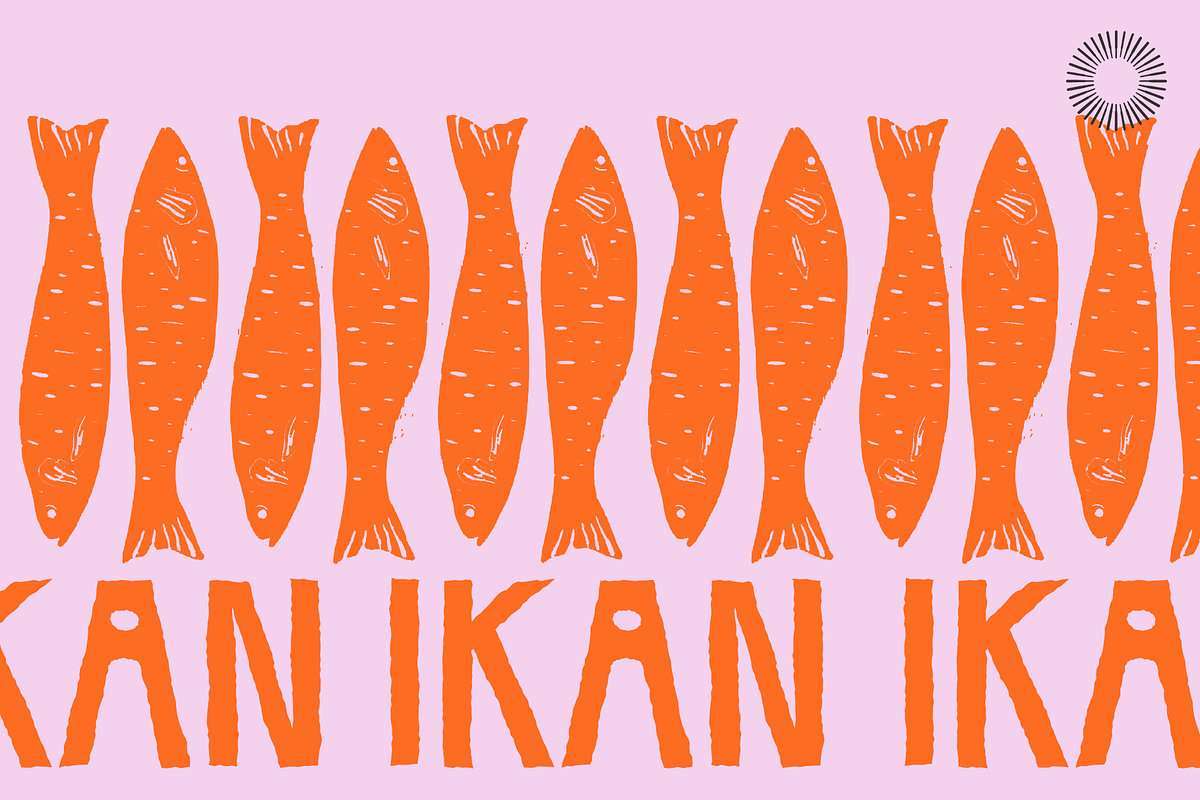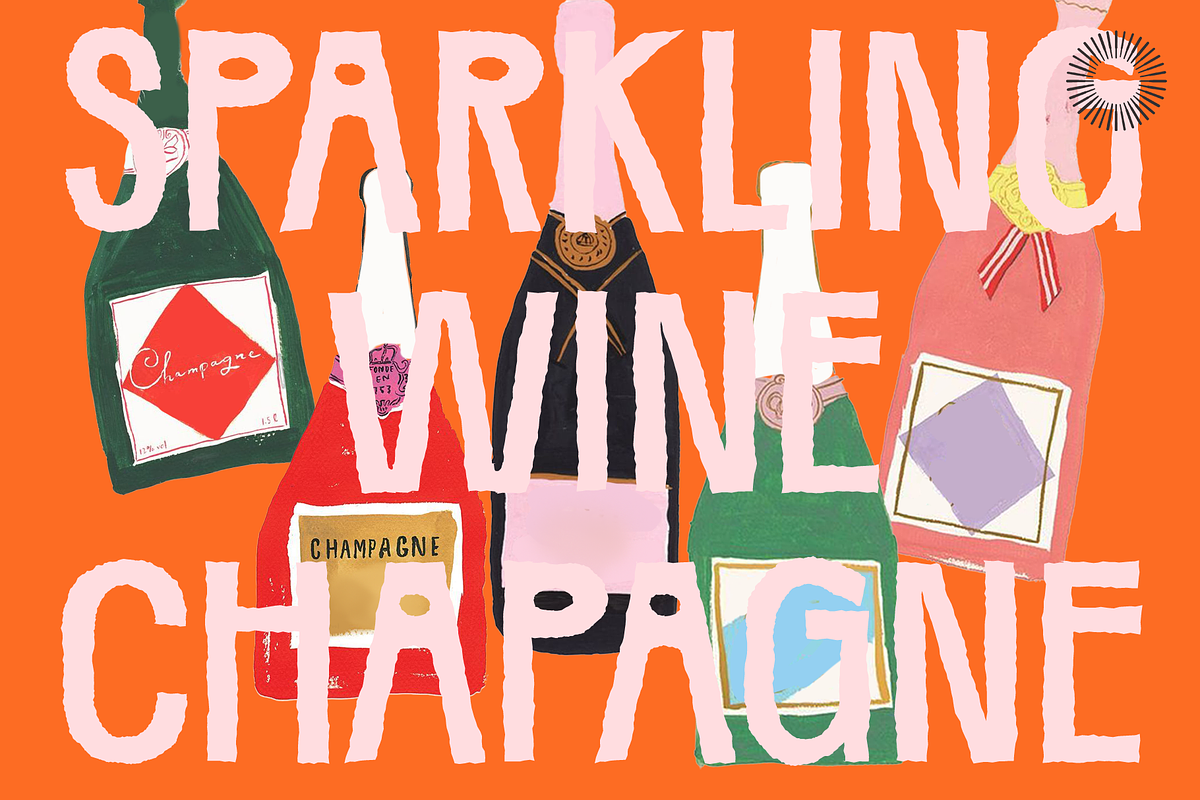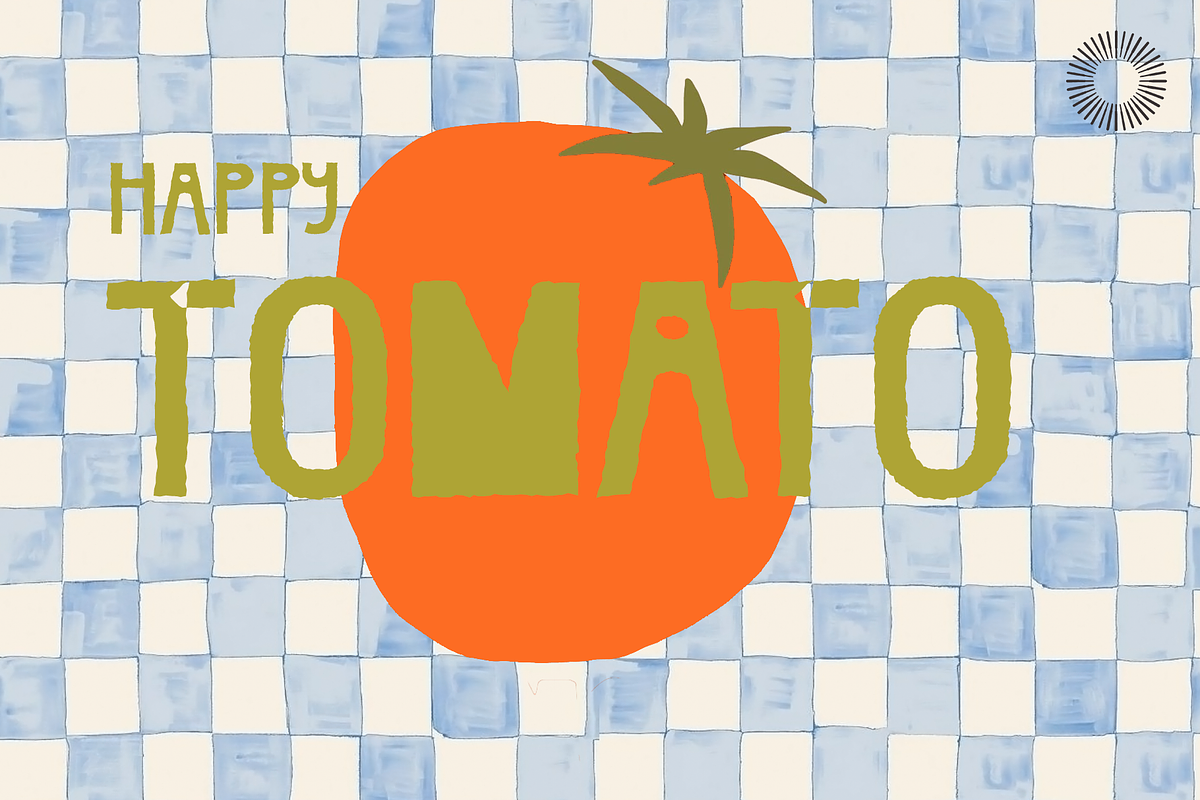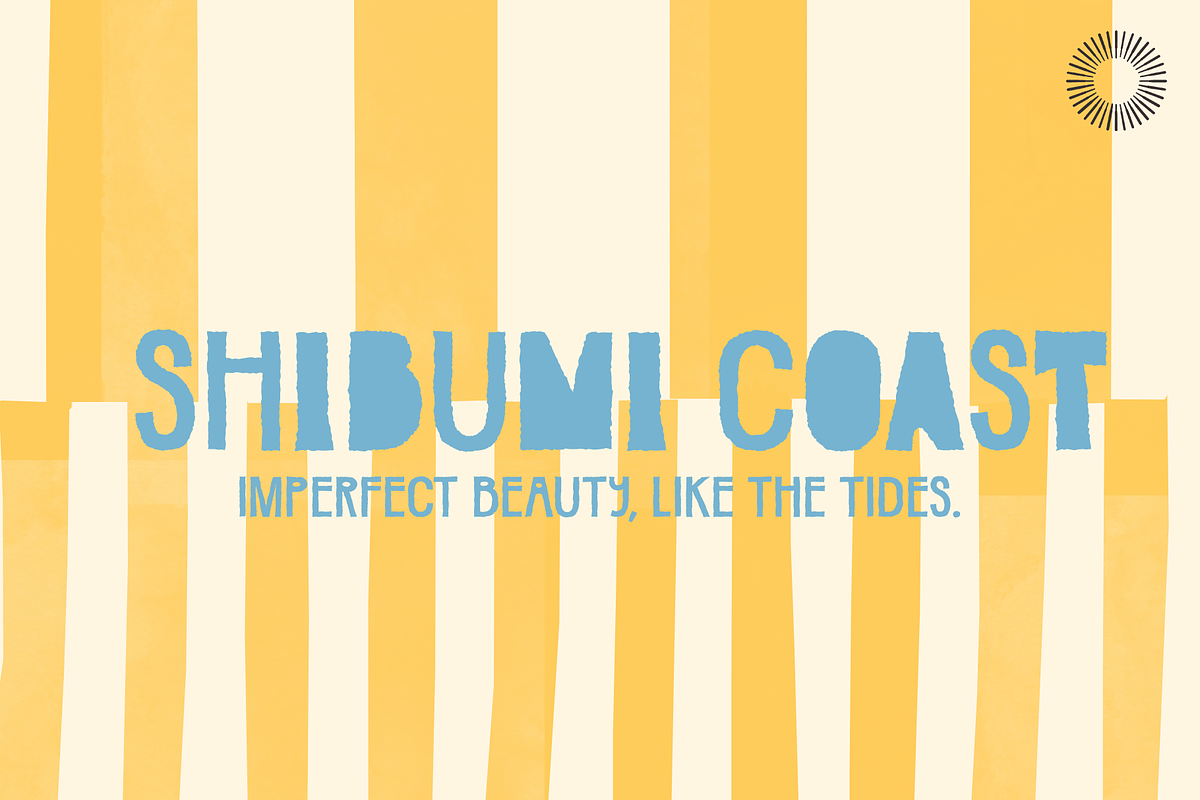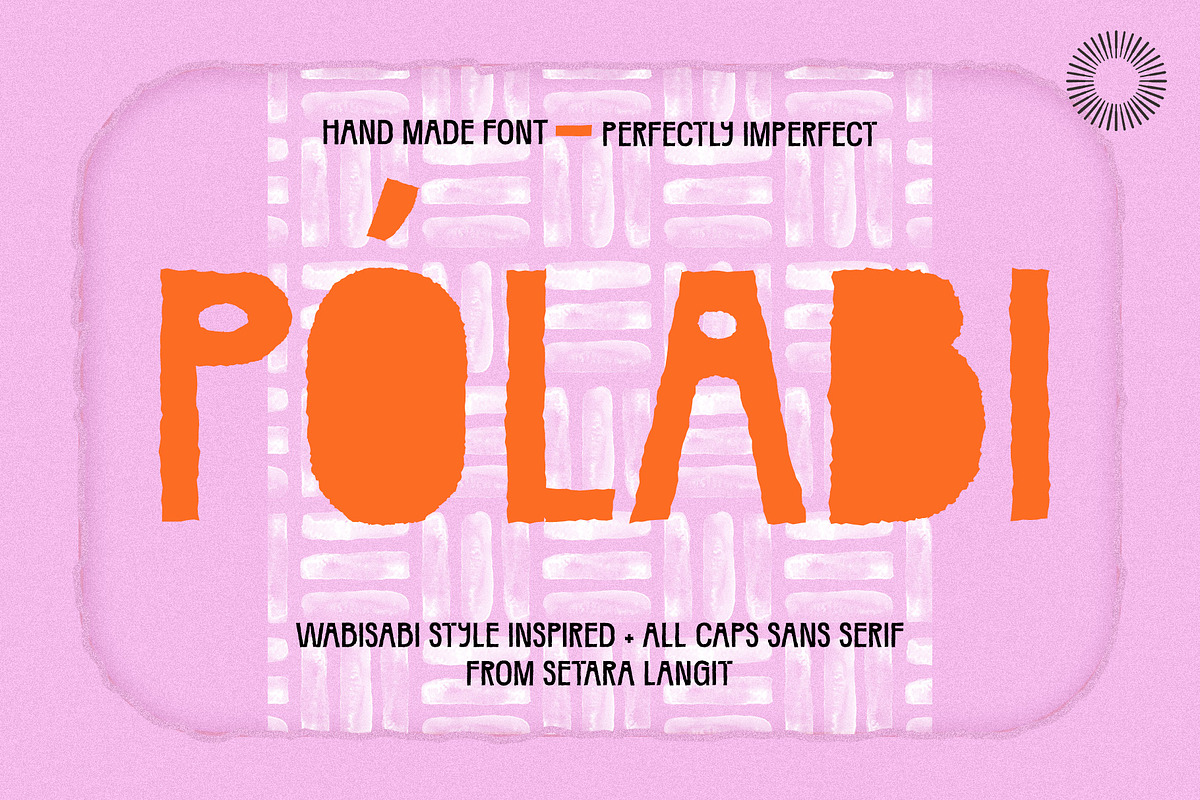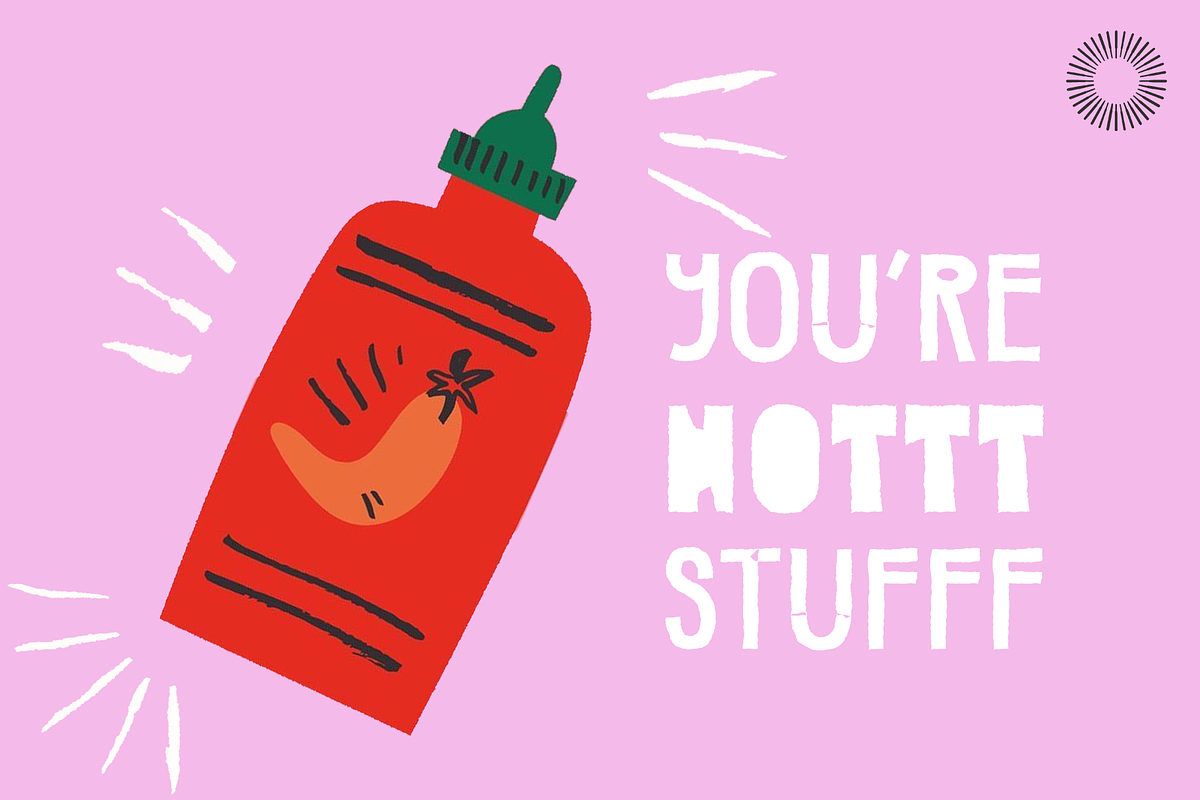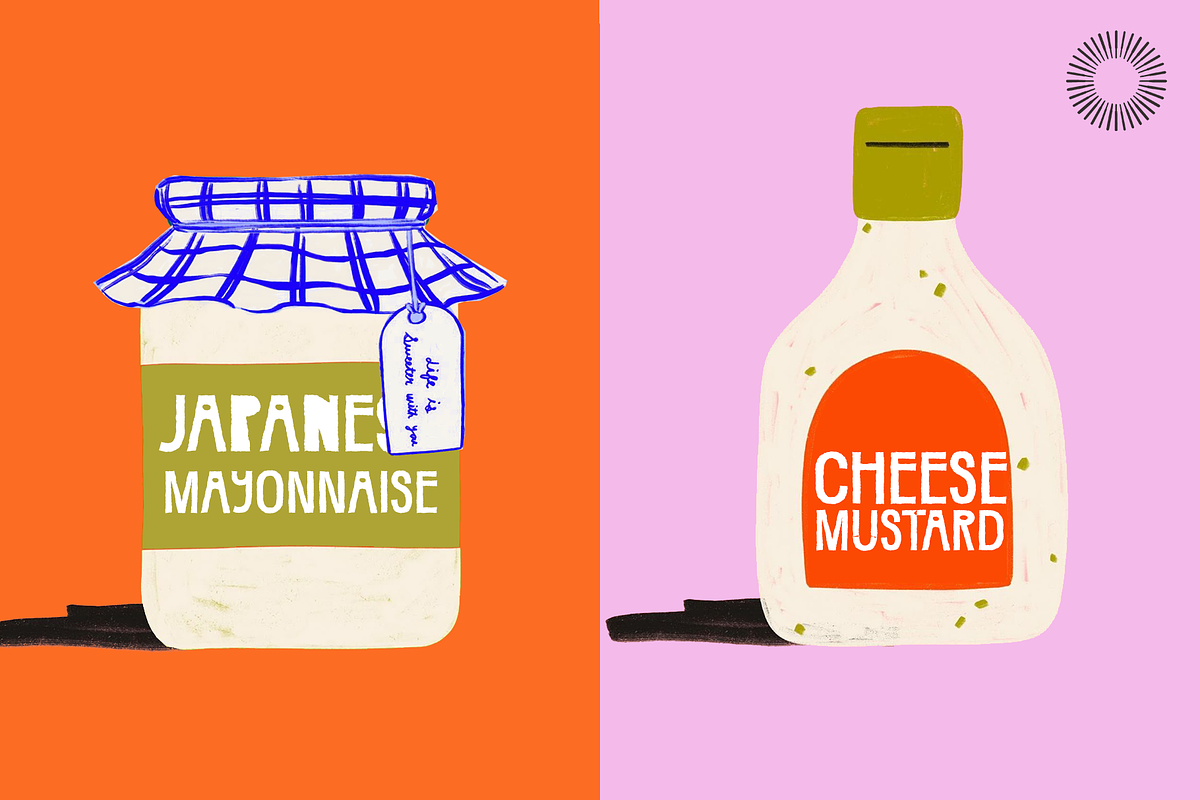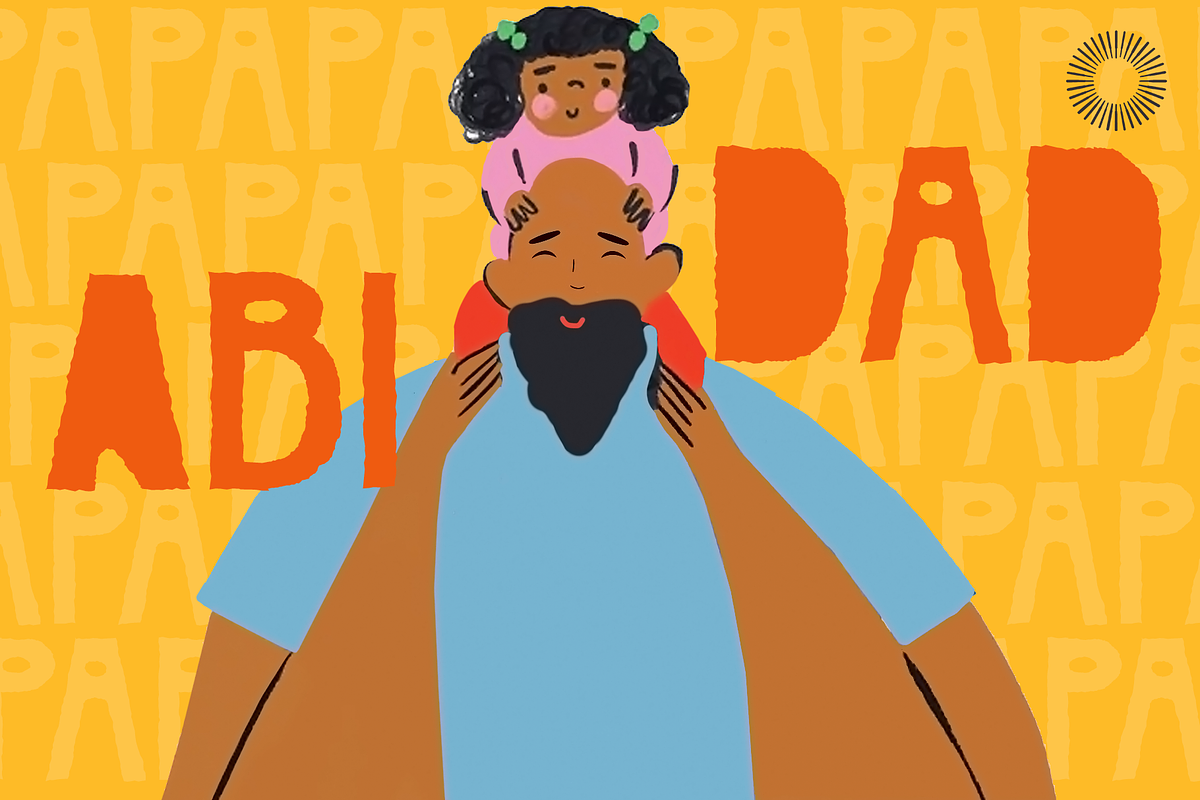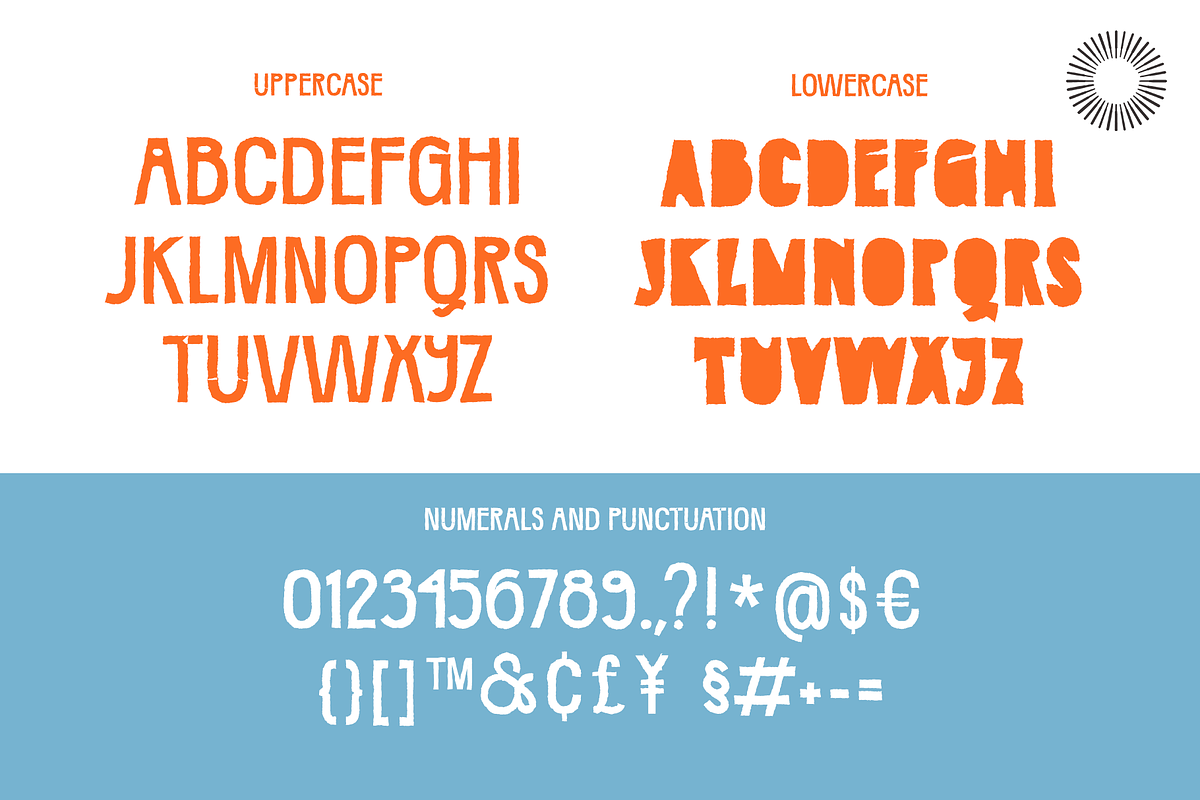
Pólabi - Wabisabi Style
Pólabi is an all-caps sans serif inspired by the quiet beauty of wabi-sabi. Its hand-drawn, sketchy edges celebrate imperfection, capturing the charm of unfinished strokes and the raw honesty of the handmade. Bold yet imperfect, Pólabi embraces the philosophy that flaws create character, making it perfect for designs that seek authenticity and warmth.